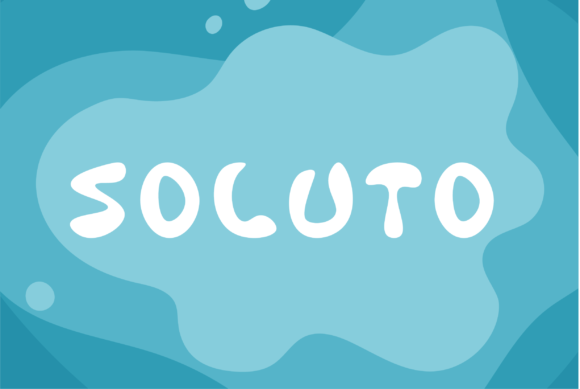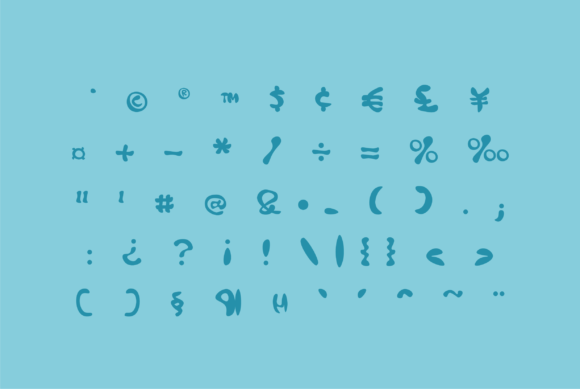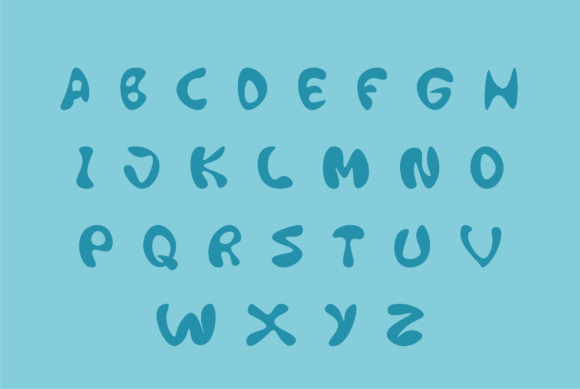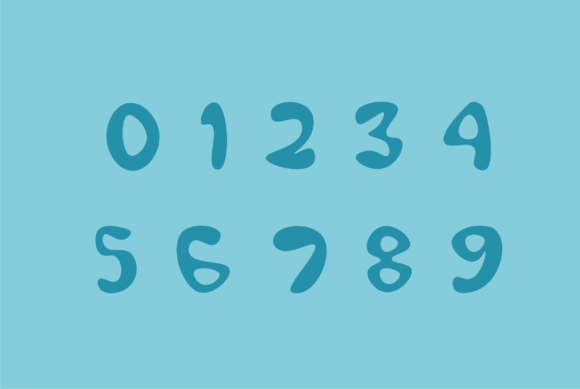
Soluto Font
About Soluto Font
Soluto is a friendly handwritten font. This enchanting and whimsical font will turn any creative idea into a true standout. Get creative with its childlike playfulness, and use it to brighten up any kids and school project!